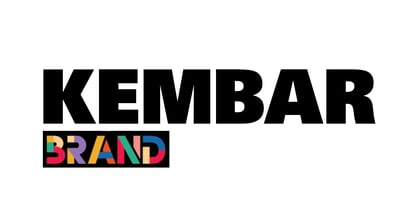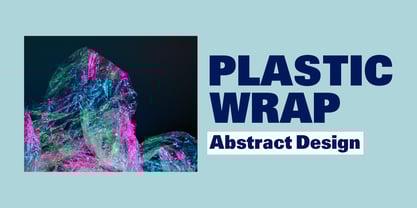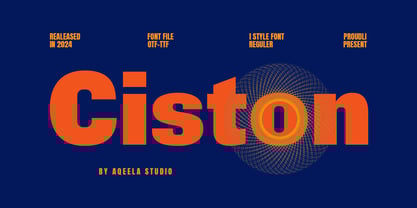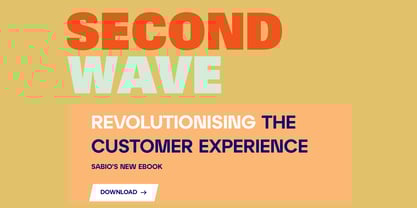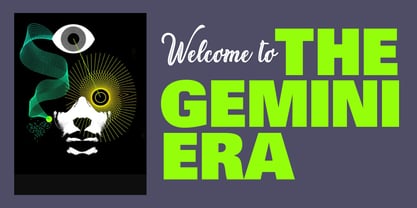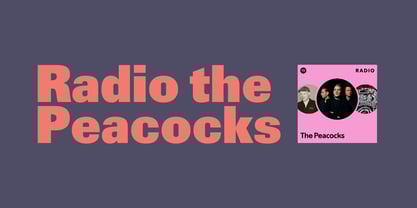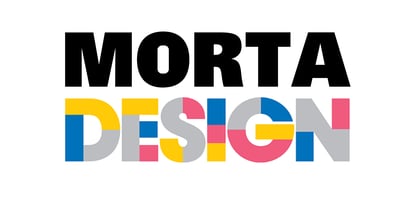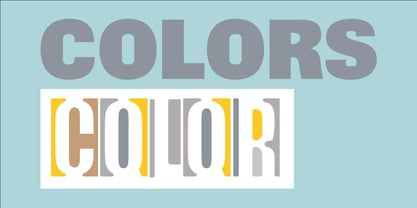
Ciston
by Aqeela Studio
The Ciston Font Family was designed by Muhammad Nasir and published by Aqeela Studio. Ciston contains 1 styles. More about this family
Imagine words that stand out and speak louder than the rest. The bold Ciston sans serif font is a typographic rebel, commanding attention with its clean lines and modern feel. The Ciston sans serif font is a go-to for brands and designs that refuse to blend in—a visual statement of confidence and clarity.